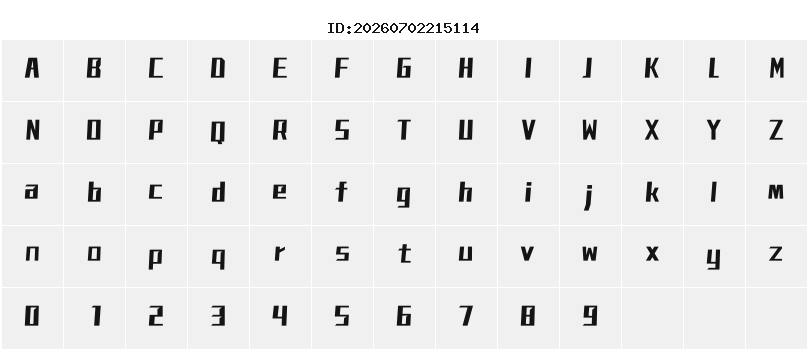
090-上首嘻哈体 Preview
• Font Name: 090-上首嘻哈体
• Font ID: 090-SS Xi Ha Ti:Version 6.00
• Full Font Name: 090-上首嘻哈体
• Version: Version 6.00 October 29, 2021
• PostScript Name: 090-SSXiHaTi
• Character Count: 7569
• Manufacturer: 上首造字
About 090-上首嘻哈体.ttf
090-上首嘻哈体.ttf is a modern, elegant sans-serif font designed for ultimate readability and visual harmony. Perfect for branding, headlines, web design, and print materials.